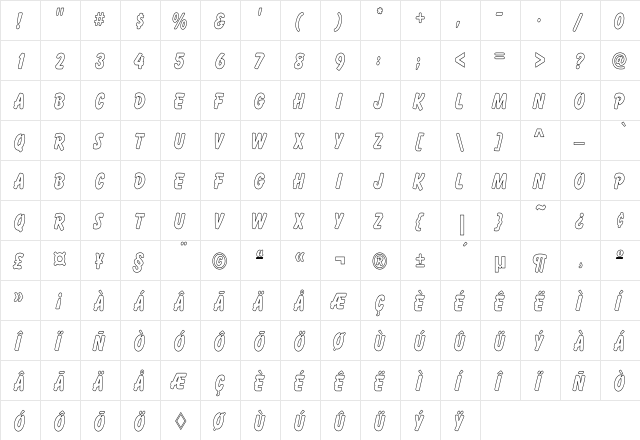
Cartoon Hollow Thin Regular Font Preview
Cartoon Hollow Thin Regular
Design Context for Cartoon Hollow Thin Typeface
Cartoon Hollow Thin has an approachable, lighthearted character — its loose, expressive forms are well-suited to children's content, casual branding, and fun-first design.
Font Pairing: Pairs well with a rounded or humanist sans for body copy, maintaining the friendly tone without relying on Cartoon Hollow Thin to carry extended reading.
Pro Tip: Use Cartoon Hollow Thin at larger display sizes where its expressive character can land. Pair with a clean, simple sans for body copy to maintain readability.